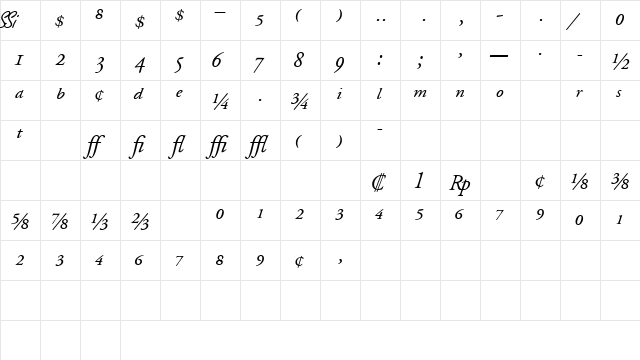
GaramondProSSK Italic Font Preview
GaramondProSSK Italic
Design Context for GaramondProSSK Typeface
GaramondProSSK offers clean, dependable letterforms without strong stylistic allegiance, making it a practical choice for designers who need flexibility. The dynamic lean of this cut emphasises speed and emphasis in any layout.
Pro Tip: Use GaramondProSSK for emphasis, pull quotes, and subheadings where its slanted energy can add rhythm to the layout.